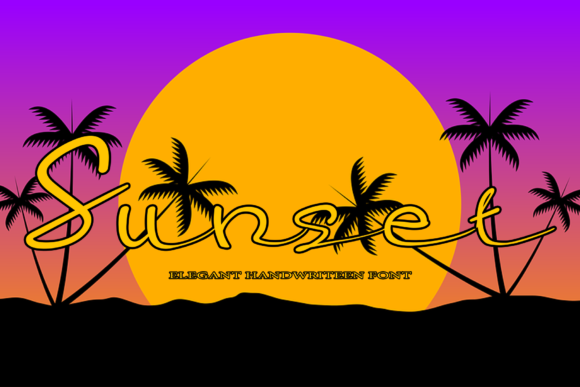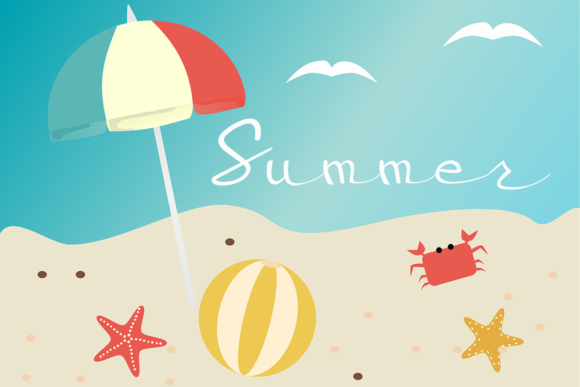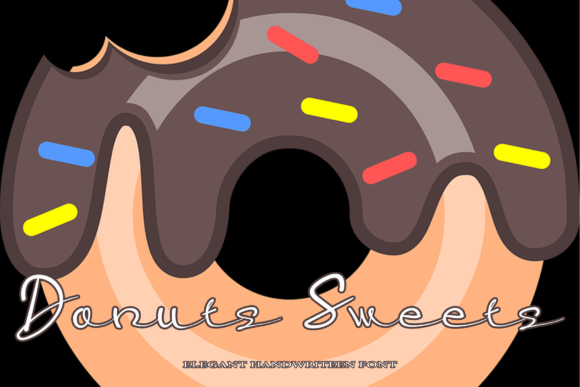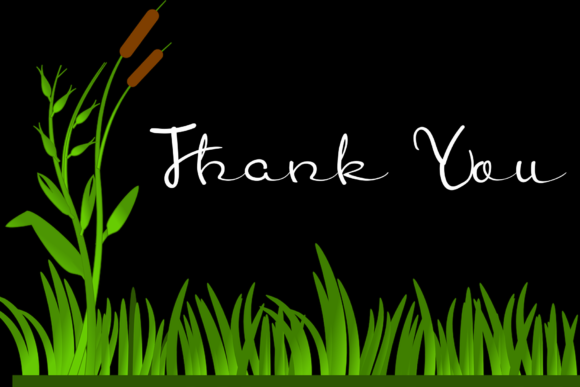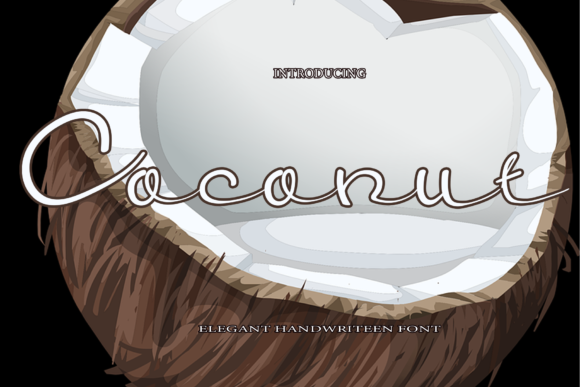
Coconut Font: Elevate Your Designs with Sophistication and Elegance
In the world of typography, a well-chosen font can make all the difference in the success of a design project. For designers and crafters looking to add a touch of sophistication and elegance to their work, Coconut Font is an exceptional choice. This chic, refined script font is designed to emanate luxury and refinement, making it the perfect match for a wide range of projects.
The Essence of Coconut Font
Coconut Font is a stylish script font that boasts a high level of sophistication. Its elegant letterforms are carefully crafted to convey a sense of refinement and luxury, making it ideal for designs that require a touch of glamour. Whether you’re working on a branding project, packaging design, or marketing materials, Coconut Font is sure to elevate your work to the next level.
Key Features of Coconut Font
So, what sets Coconut Font apart from other script fonts on the market? Here are some of its key features:
- Stylish Alternates: Coconut Font comes with a range of stylish alternates that allow you to add variety and interest to your designs. These alternates can be used to create a unique look and feel that sets your project apart from the rest.
- Ligatures: The font also features a range of ligatures that allow you to connect letters in a way that creates a flowing, natural look. This is particularly useful for creating elegant headings and titles.
- Elegant Letterforms: Each letterform in Coconut Font is carefully crafted to convey a sense of sophistication and elegance. The font’s letterforms are highly legible, making it suitable for use in a wide range of design projects.
Uses for Coconut Font
Coconut Font is a versatile font that can be used in a wide range of design projects, including:
- Branding: Use Coconut Font to create elegant and sophisticated branding materials, such as logos, business cards, and letterheads.
- Packaging Design: Add a touch of luxury to your packaging designs with Coconut Font. The font’s elegant letterforms and stylish alternates make it perfect for creating eye-catching labels and packaging materials.
- Marketing Materials: Coconut Font is also ideal for use in marketing materials, such as brochures, flyers, and posters. The font’s sophisticated look and feel will help your marketing materials stand out from the crowd.
- Wedding and Event Design: Coconut Font is a popular choice for wedding and event designers, who use it to create beautiful and elegant stationery, invitations, and signage.
Tips for Using Coconut Font
Here are some tips for getting the most out of Coconut Font:
- Use it sparingly: While Coconut Font is a beautiful font, it’s best used sparingly. Use it for headings and titles, and pair it with a simpler font for body text.
- Experiment with alternates: Don’t be afraid to experiment with Coconut Font’s stylish alternates. This will help you create a unique look and feel that sets your project apart.
- Pair it with other fonts: Coconut Font pairs well with a range of other fonts, including sans-serif fonts and serif fonts. Experiment with different pairings to find the one that works best for your project.
Coconut Font is a sophisticated and elegant script font that’s perfect for designers and crafters looking to add a touch of luxury to their work. With its stylish alternates, ligatures, and elegant letterforms, Coconut Font is sure to elevate your designs to the next level. Whether you’re working on a branding project, packaging design, or marketing materials, Coconut Font is an excellent choice.